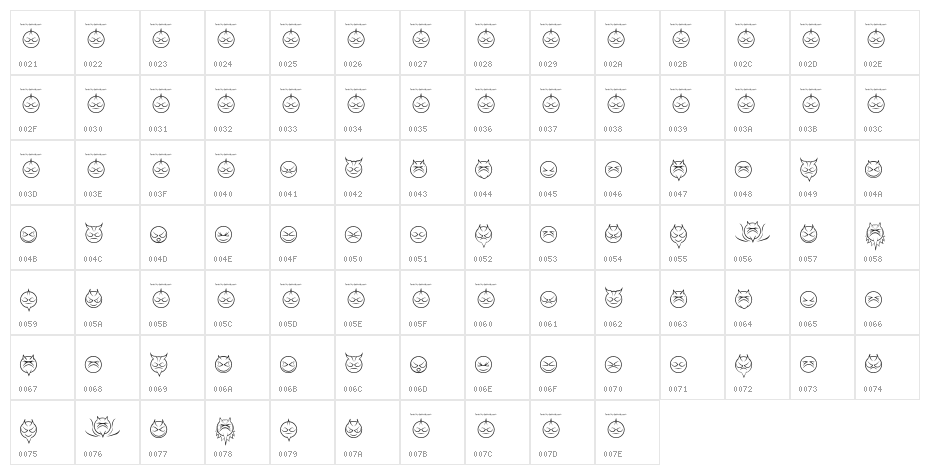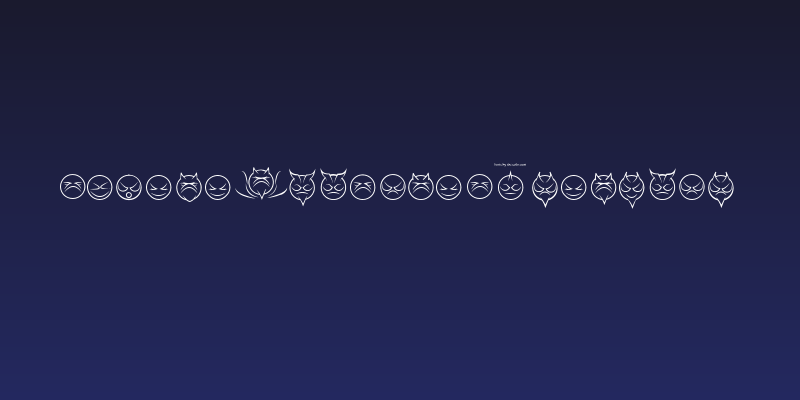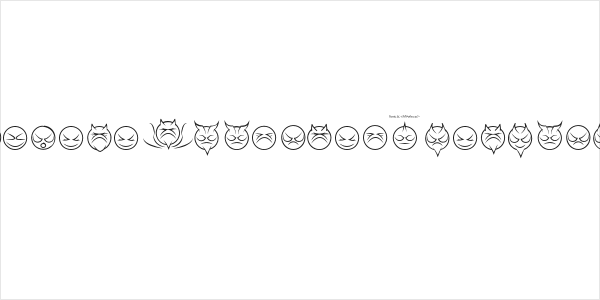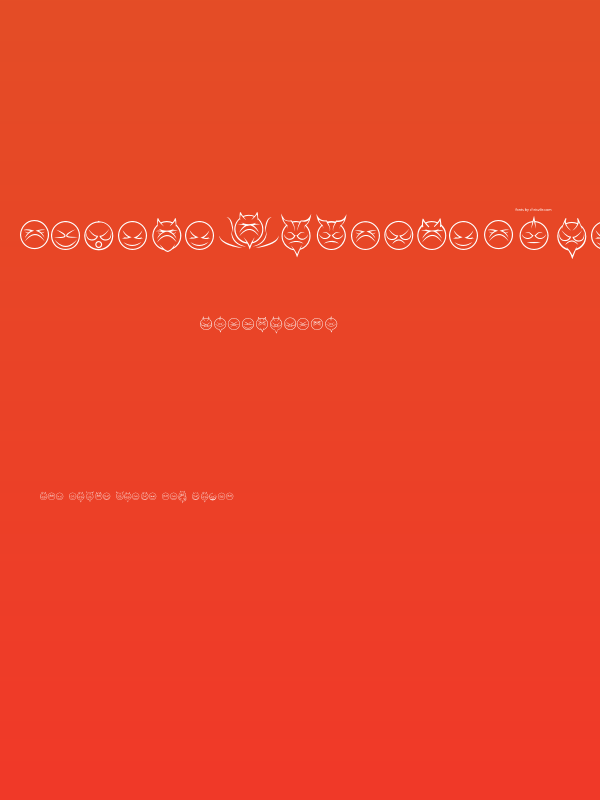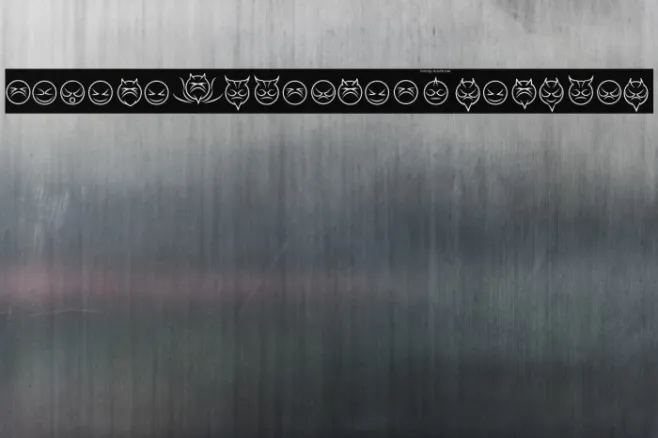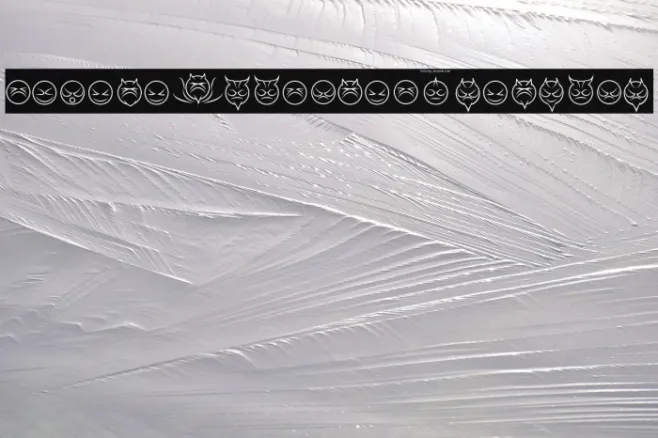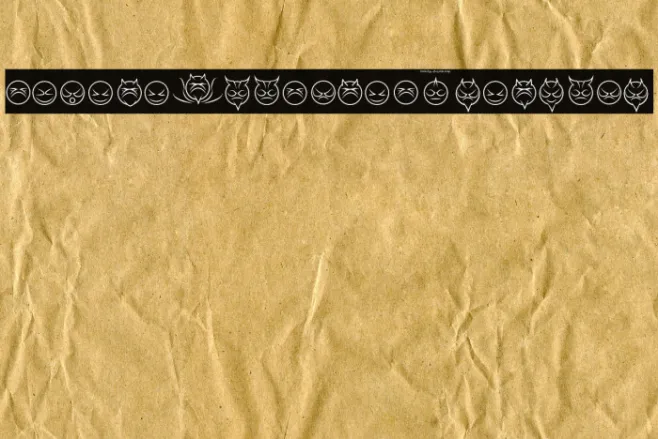
somedevilfaces-Regular Font
somedevilfaces-Regular Description
This collection features a series of devilish and mischievous faces, each encapsulated within a circular frame. The expressions range from sly smirks to fierce glares, capturing a playful yet sinister aesthetic. The lines are bold and clean, emphasizing the distinct features of each face, such as horns, eyes, and mouths. The uniformity of the circular frames provides a cohesive look, while the variety in expressions adds a dynamic element. This set is perfect for projects that require a touch of whimsy or a hint of the supernatural.
| Use Case | Icons, Logos, Decorative elements |
| Proposed Projects | Ideal for graphic design projects, Halloween-themed materials, game design, or any creative work requiring unique and expressive icons. |